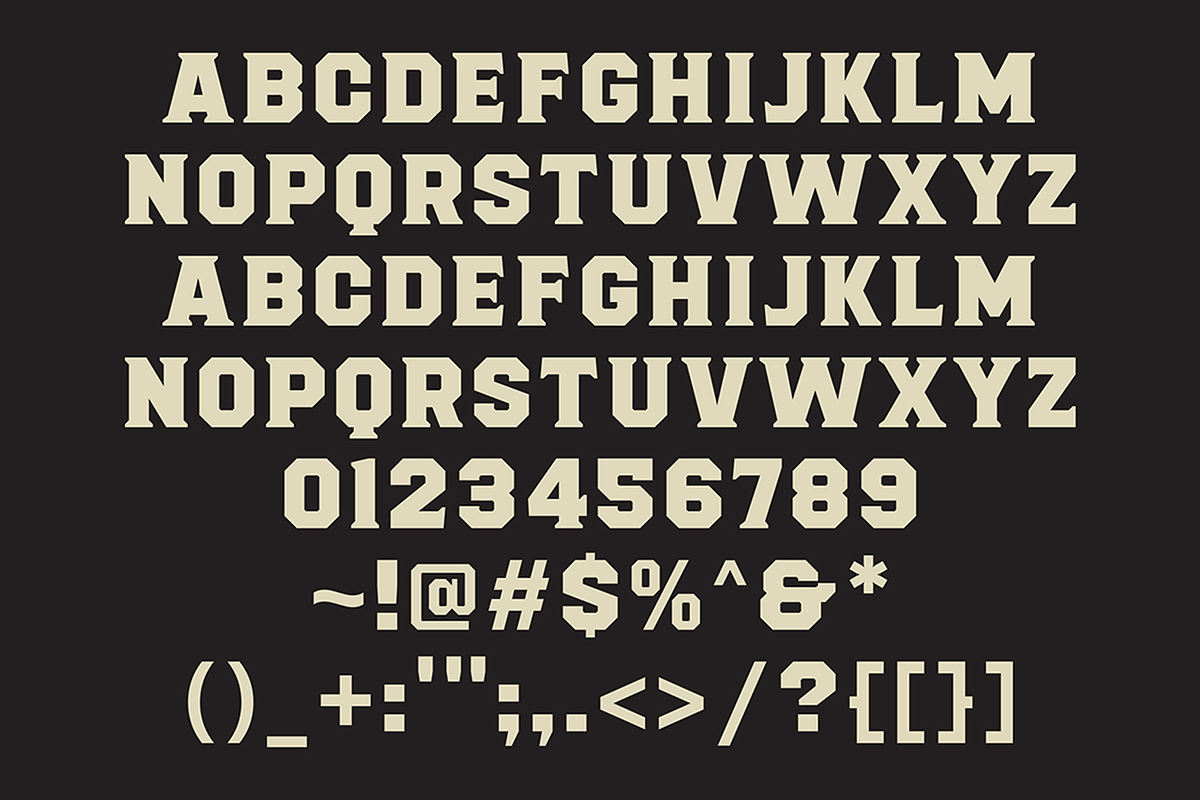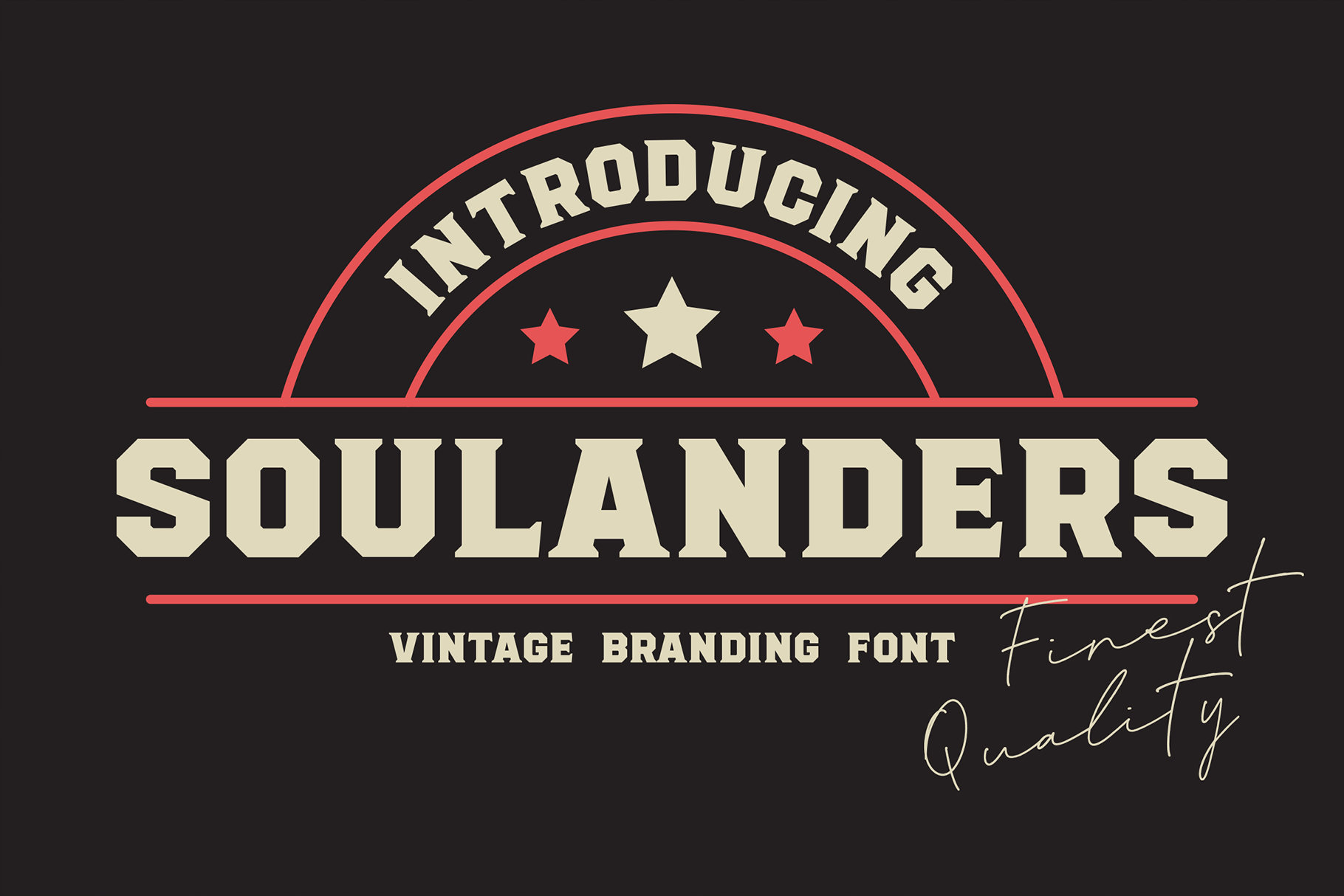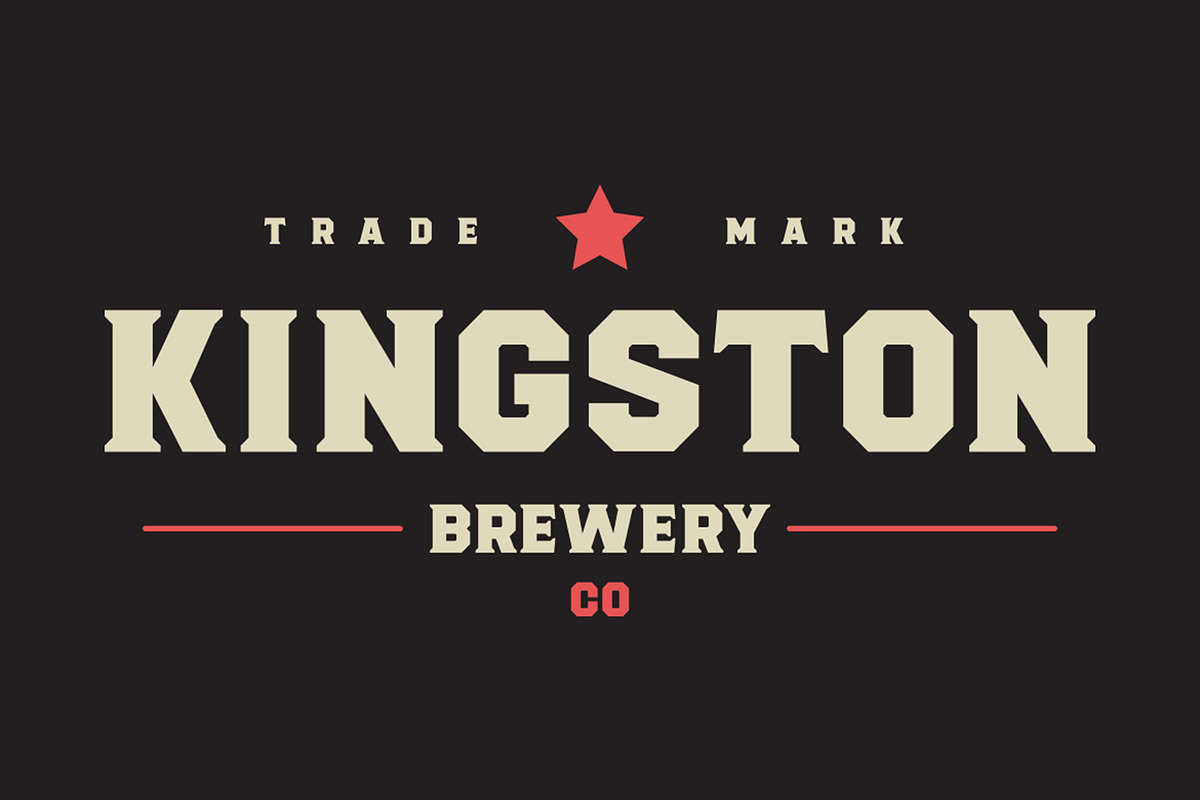
Soulanders – Vintage Bold Fonts
For the sake of old man taste, we crafted this Soulanders font. A strong vintage serif display typeface for your old era visual branding.
All Caps letters and English Language Support.